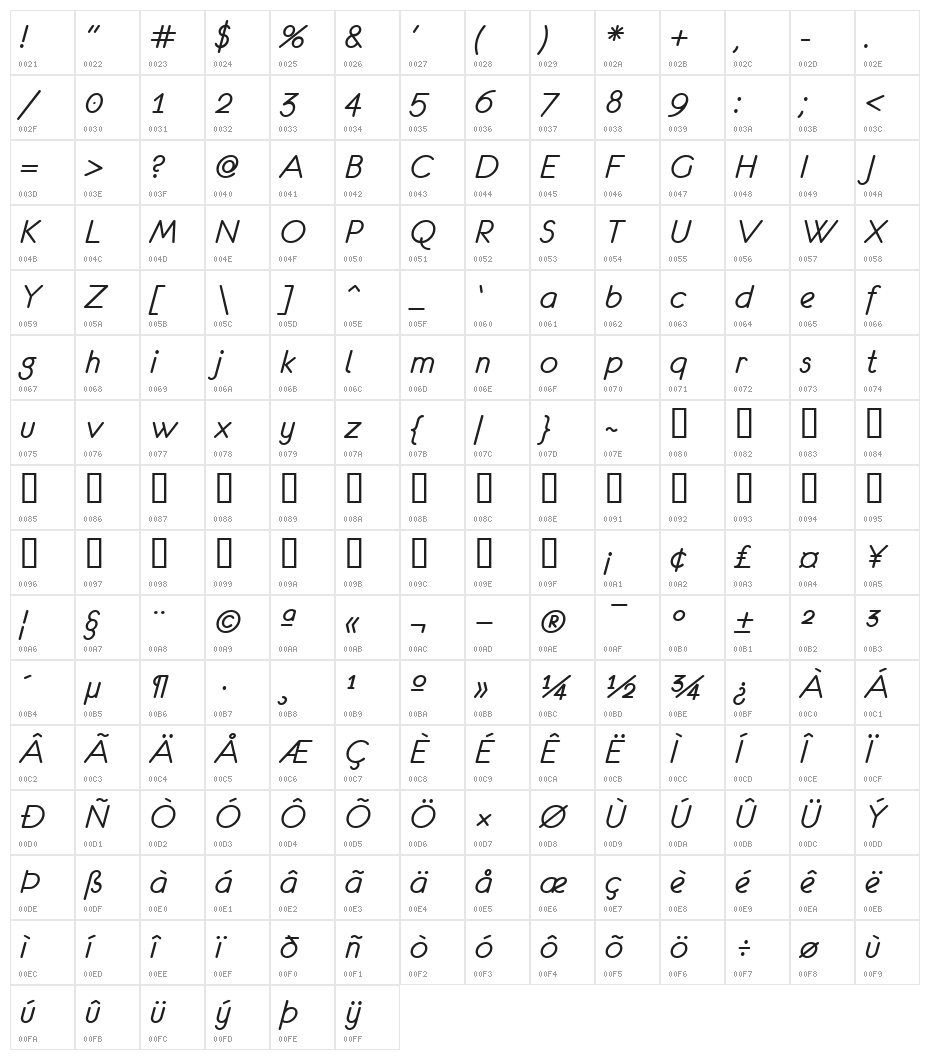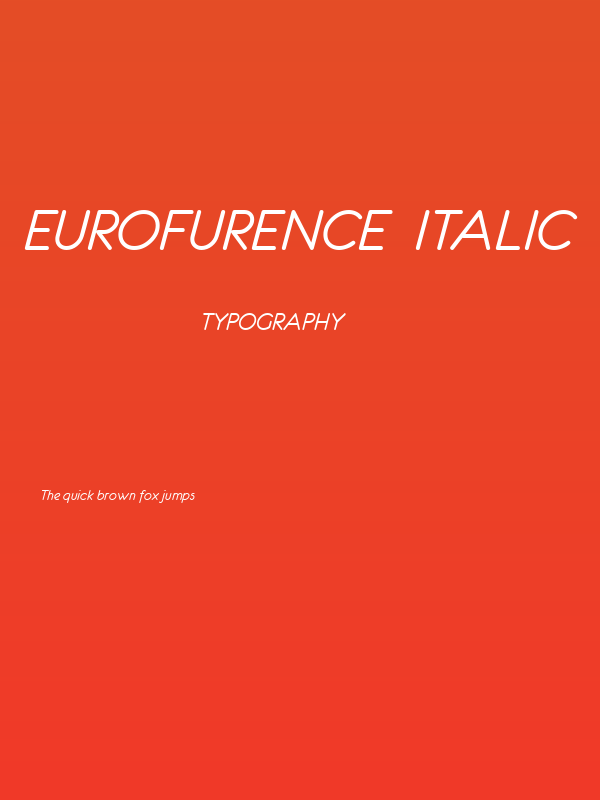
eurofurence italic Font
eurofurence italic Description
This font features a sleek, italicized design with smooth curves and a modern aesthetic. The uppercase letters are slightly elongated, giving them a sophisticated appearance. The lowercase letters maintain a consistent flow, enhancing readability while retaining an elegant style. Numbers are clear and distinct, with a slight slant that matches the overall italic theme. Special characters are well-integrated, ensuring versatility in various text compositions. The font's uniform stroke width contributes to its clean and polished look, making it suitable for both digital and print media.
| Proposed Projects | Ideal for branding, advertising, and editorial design where a modern and elegant touch is desired. |